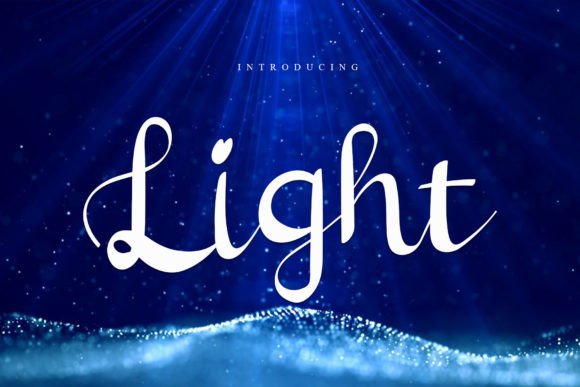
Prepare to be mesmerized by Light Font, an exquisite script font that dances with grace upon the digital canvas. As if plucked straight from a quill's delicate caress, Light Font mirrors the fluidity of penmanship, its characters flowing with an ethereal elegance that captures the essence of handwritten beauty.
With its varied baseline and natural, hand-made touch, Light Font exudes an enchanting charm that will elevate your designs to new heights of sophistication. Each letterform is a work of art, bearing the unique personality of its creator, giartstudios.
Picture your words taking shape, adorned with the elegance of Light Font. Wedding invitations adorned with intricate swirls and flourishes, as if whispered by a gentle breeze. Greeting cards that carry heartfelt messages, each stroke imbued with sincerity and warmth. Billboards that command attention, their messages standing out with a distinctive charm that draws the eye.
Logos and business cards transformed into miniature masterpieces, conveying professionalism and creativity with every stroke. Flyers and posters that ignite imagination, their words dancing off the page with playful energy. The possibilities are boundless, limited only by your boundless creativity.
Light Font is not merely a collection of static characters; it is a gateway to a world of artistic expression. With its PUA encoding, you hold the key to unlock a treasure trove of glyphs and swashes, ready to be woven into your design tapestry.
With Light Font, breathe life into your artistic vision. Transform your designs into captivating works of art, imbued with a touch of handwritten magic. Let your ideas take flight, carried aloft by the wings of this enchanting script font.